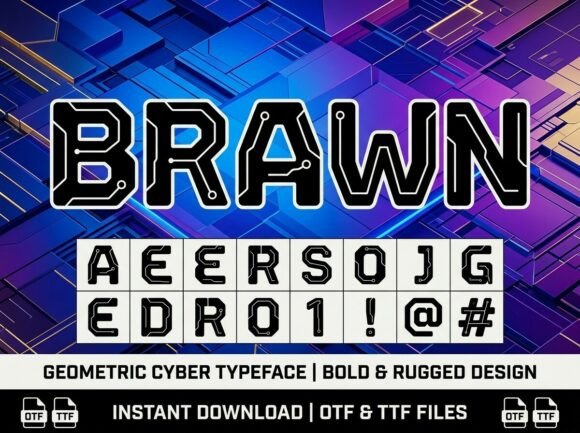
Unleash Your Creativity with Brawn Font
Have you ever found yourself staring at a blank canvas, trying to come up with the perfect combination of words to grab your audience’s attention? We’ve all been there. The moment of creative clarity, when everything falls into place, and your idea is born. That’s exactly what Brawn Font is designed to help you achieve – a bold, eye-catching statement that leaves a lasting impression.
Brawn Font is a stunning decorative display font, crafted to be the centerpiece of any design. With its unique artistic elements and strong visual personality, it’s perfect for creators who want to break free from the ordinary and make a statement. This versatile font is ideal for bold headlines, artistic logos, and creative packaging, while maintaining a professional and polished finish.
Brawn Font Key Features
- Unique Characteristics: The font features a unique blend of geometric and organic elements, creating a distinctive and modern aesthetic.
- Kerning and Ligatures: The font includes advanced kerning and ligature pairs, ensuring smooth and elegant text rendering.
Brawn Font Review
Overall, I think Brawn Font is a solid choice for designers looking for a bold, sans-serif font. It’s great for headings and titles, and its clean lines make it easy to read.
- ✨ Brawn Font is highly customizable, with a wide range of weights and styles to choose from.
- ✨ It’s optimized for digital use, making it perfect for websites, mobile apps, and other digital platforms.
- ✨ The font is highly legible, even at small sizes, making it great for body text.
- ⚠️ The font can feel a bit too bold for some applications, particularly for body text.
- ⚠️ Some of the weights may feel a bit inconsistent, particularly in the heavier weights.
- ⚠️ The font may not be the best choice for applications where a more subtle, elegant font is desired.
In conclusion, Brawn Font is a solid choice for designers who want a bold, sans-serif font that’s highly customizable and optimized for digital use. While it may not be the best choice for every application, it’s definitely worth considering for projects where a bold, attention-grabbing font is desired.
Getting the Most Out of Brawn Font
For best results, use Brawn font in bold or italic styles to add emphasis to your text.
Pair Brawn font with a clean and minimalist design to create a professional look.
Alternatives to Brawn Font
Montserrat is a modern sans-serif font designed by Julieta Ulanovsky. It’s perfect for creating clean and minimalist designs, especially for digital products and websites. Montserrat is more geometric and clean compared to Brawn Font, which makes it ideal for modern and tech-savvy audiences.
Comparison to Brawn Font: Montserrat has a more straightforward and minimalist design compared to Brawn Font’s more aggressive and bold style.
Playfair Display is a luxurious and elegant serif font designed by Claus Eggers Sørensen. It’s ideal for creating high-end designs, such as luxury brands, fashion, and fine art. Playfair Display is more refined and sophisticated compared to Brawn Font, which makes it perfect for creating a sense of opulence and sophistication.
Comparison to Brawn Font: Playfair Display has a more traditional and classic design compared to Brawn Font’s modern and edgy style.
Great Vibes is a modern sans-serif font designed by Pablo Impallari. It’s perfect for creating fun and energetic designs, especially for creative agencies, startups, and entertainment brands. Great Vibes is more playful and carefree compared to Brawn Font, which makes it ideal for creating a sense of excitement and adventure.
Comparison to Brawn Font: Great Vibes has a more relaxed and casual design compared to Brawn Font’s more aggressive and bold style.